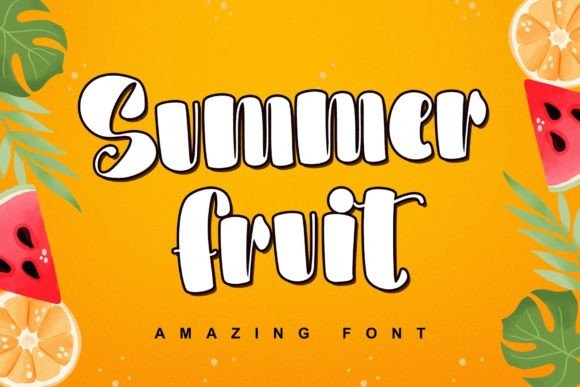
Introducing Summer Fruit Font: The Perfect Dash of Fun and Freshness for Your Creative Adventures!
Embark on a delightful journey with Summer Fruit Font, a display font that exudes a bold, cute style and adds a splash of playful charm to your designs. This captivating font was meticulously crafted by thomasaradea, a renowned font designer with an eye for creating fonts that resonate with users' hearts.
With its vibrant and cheerful nature, Summer Fruit Font is perfect for adding a touch of fun and whimsy to your projects. Whether you're creating logos, branding materials, birthday invitations, posters, advertisements, or product packaging, this font will effortlessly elevate your designs.
Dive into the world of Summer Fruit Font and let your creativity bloom:
* Unleash Your Inner Artist: Express your artistic flair and let your designs shine with the bold and captivating strokes of Summer Fruit Font. Its playful personality adds a touch of uniqueness to your projects, making them stand out from the crowd.
* Create Unforgettable Logos & Branding: Capture the essence of your brand with Summer Fruit Font. Its bold and playful style will create logos and branding elements that instantly connect with your audience, leaving a lasting impression.
* Design Joyful Invitations: Spread happiness and excitement with Summer Fruit Font. Its cheerful vibe is perfect for creating birthday party invitations, baby shower invites, and other special occasion announcements that will bring a smile to everyone's face.
* Add a Splash of Fun to Posters & Ads: Make your posters and advertisements pop with the vibrant energy of Summer Fruit Font. Its bold and eye-catching style will grab attention and leave a lasting impression, ensuring your message is seen and remembered.
* Elevate Product Packaging: Transform your product packaging into delightful works of art with Summer Fruit Font. Its playful charm will create packaging that captures the attention of customers and makes your products irresistible.